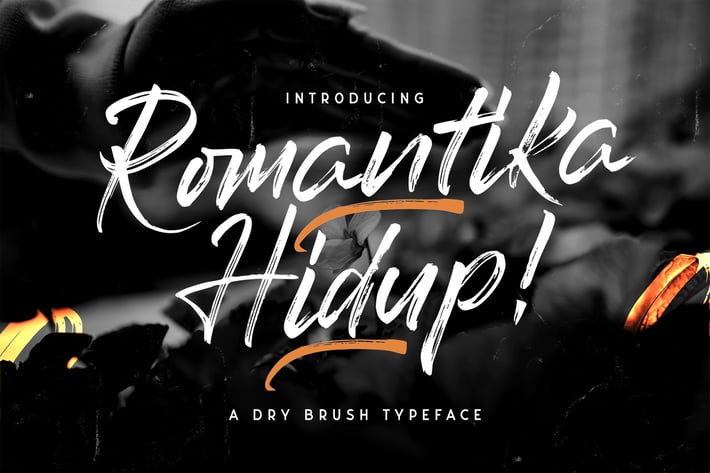
Romantika Hidup - Dry Brush Script Font
Introducing Romantika Hidup - Dry Brush Script Font
Romantika Hidup is a stylish and incredibly elegant brush script font. It looks stunning on t-shirt, packaging products, logotype, wedding invitations, thank you cards, quotes, greeting cards, logos, business cards and every other design which needs a handwritten touch!